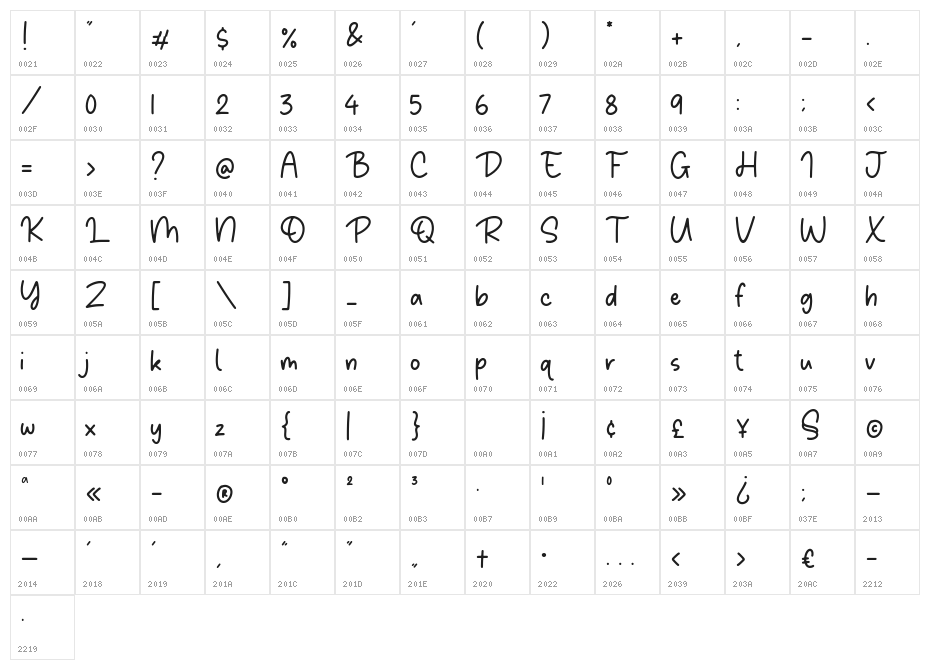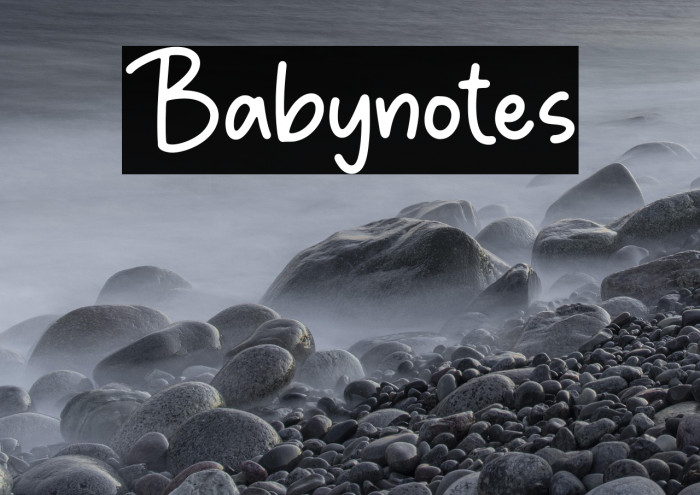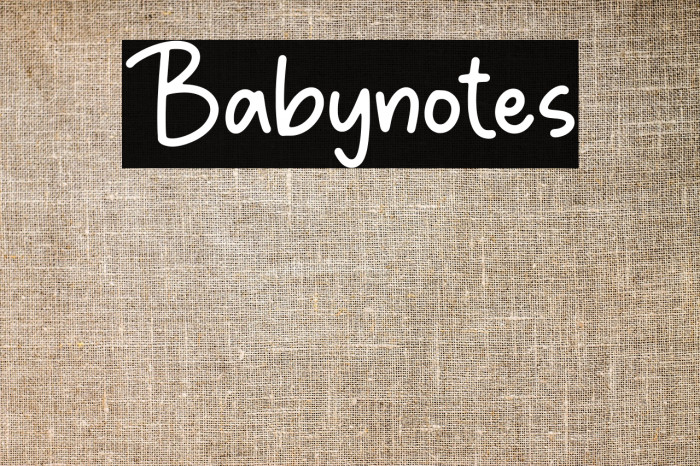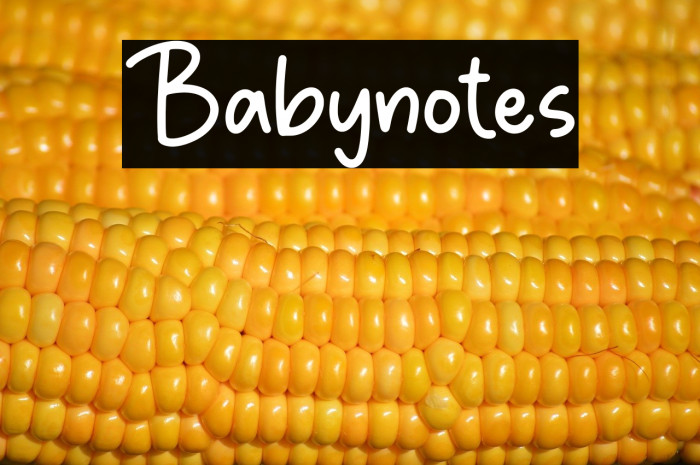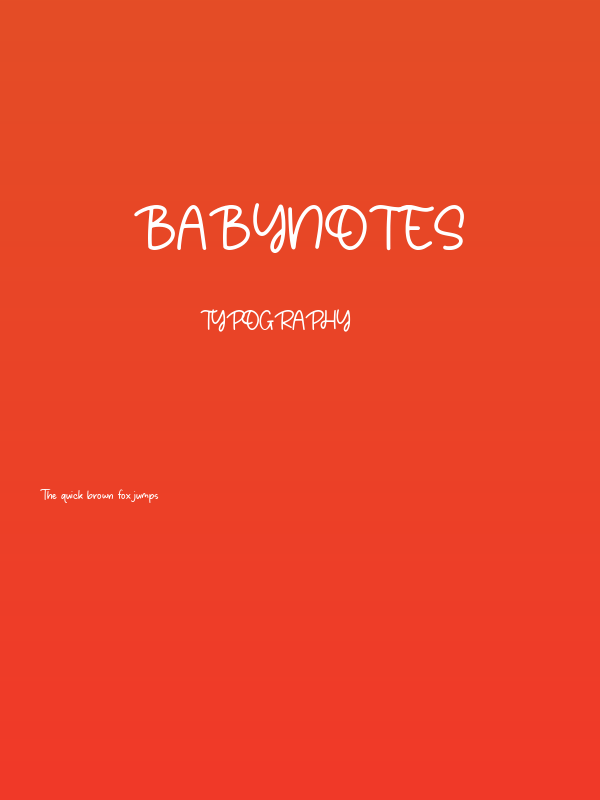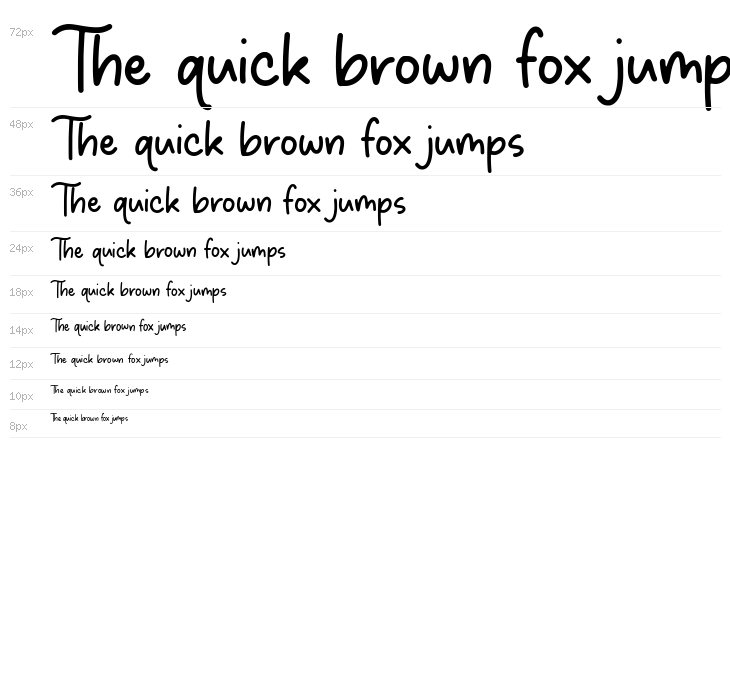
Babynotes Font
Babynotes Description
A playful, handwritten font with a casual and friendly appearance, featuring rounded edges and a slightly irregular baseline.
| Overall Style | Casual, Playful |
| Use Case | Headlines, Informal text, Branding |
| Proposed Projects | Children's books, greeting cards, playful branding. |